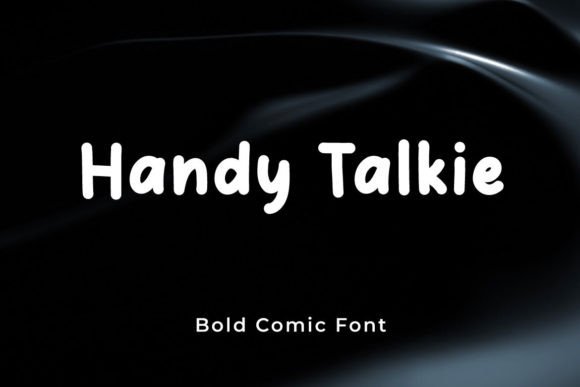
Introducing Handy Talkie, the font that echoes the voice of adventure and unleashes the wild spirit within your words. This bold script font, crafted by the talented hands at Mightyfire, is not just a collection of letters; it's an invitation to embark on a journey where your imagination runs free and your creativity knows no bounds.
With its playful and expressive characters, Handy Talkie captures the essence of handwritten notes, evoking a sense of nostalgia and personal connection. It's the perfect font for those who dare to be different, for those who want their words to dance and leap off the page.
Picture this: your designs adorned with Handy Talkie's charming curves, captivating your audience with its infectious energy. Comics come alive, posters demand attention, and social media posts spark conversations. Handy Talkie is more than a font; it's a gateway to a world where ordinary text transforms into captivating narratives.
Whether you're a seasoned designer or just starting your creative journey, Handy Talkie is your companion along the way. Its versatility makes it a perfect fit for a wide range of projects, from whimsical invitations to eye-catching logos. With Handy Talkie, you'll discover a font that's as expressive as your imagination.
So, dive into the world of Handy Talkie, where your words will never be ordinary again. Embrace the adventure, let your creativity soar, and let Handy Talkie be your guide. Unleash the power of expression and make your designs shine with a font that's as unique as your vision.